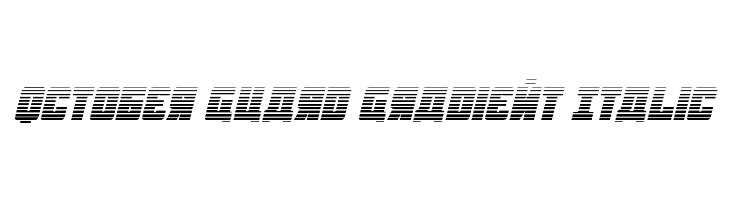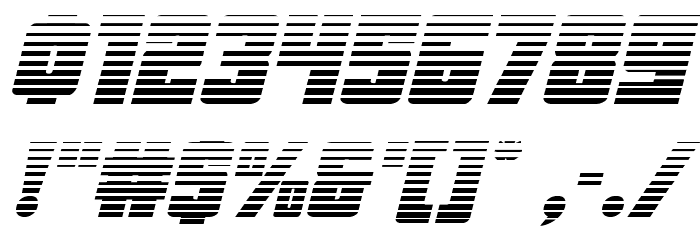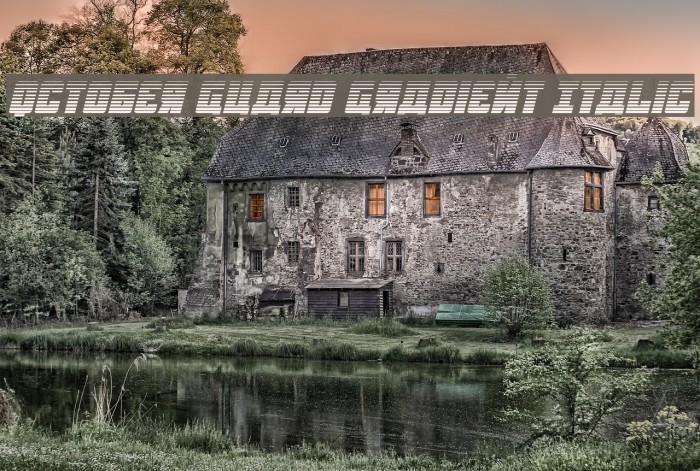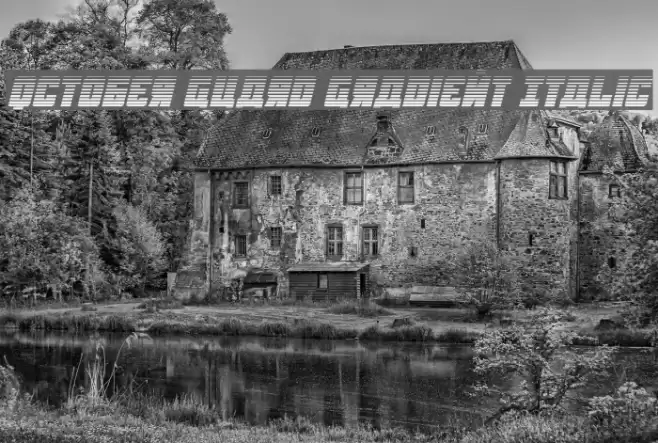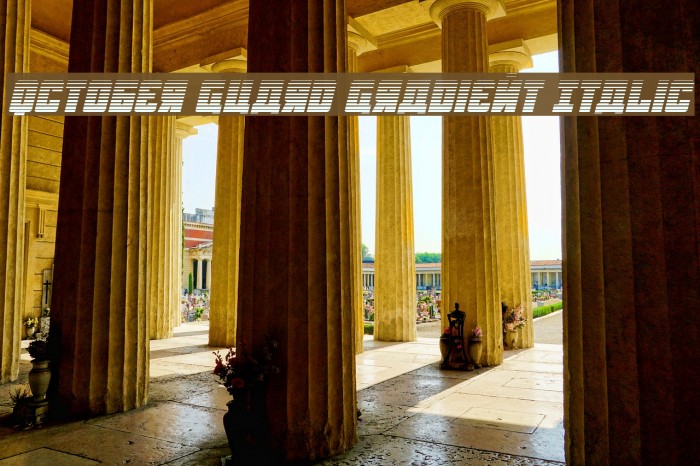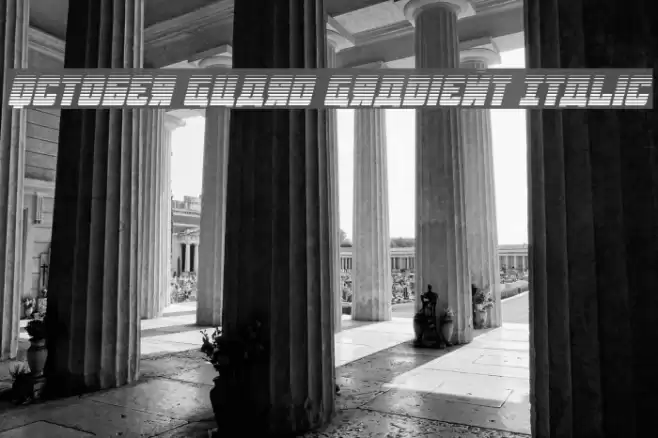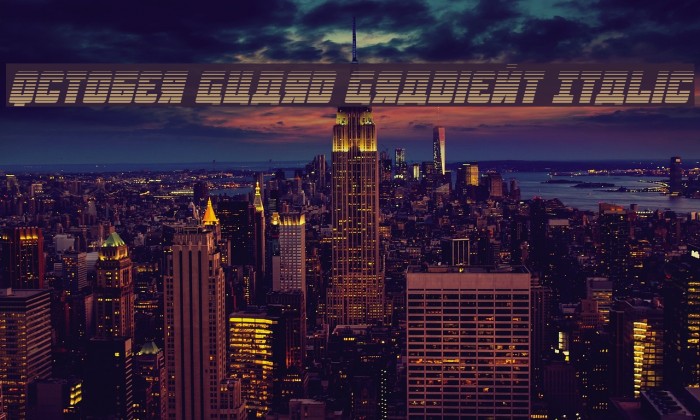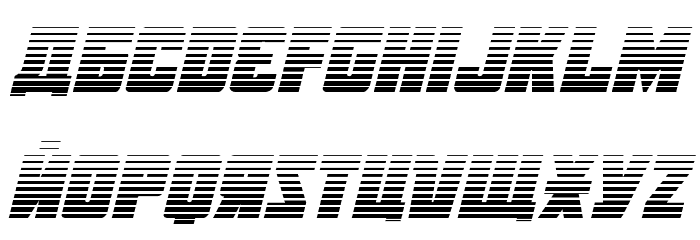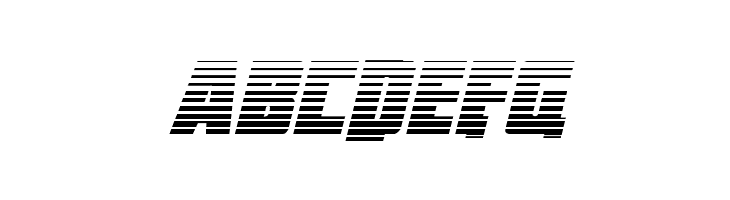
October Guard Gradient Italic Font
October Guard Gradient Italic Description
This font features a bold, italicized style with a distinct gradient effect created by horizontal lines that vary in thickness. The characters are designed with a futuristic and dynamic appearance, making them stand out with a sense of motion and energy. The uppercase and lowercase letters, as well as numbers and special characters, maintain a consistent slanted orientation, enhancing the italicized look. The overall design is modern and eye-catching, suitable for projects that require a strong visual impact.
| Proposed Projects | Ideal for use in technology branding, sports team logos, video game titles, and dynamic advertising campaigns. |